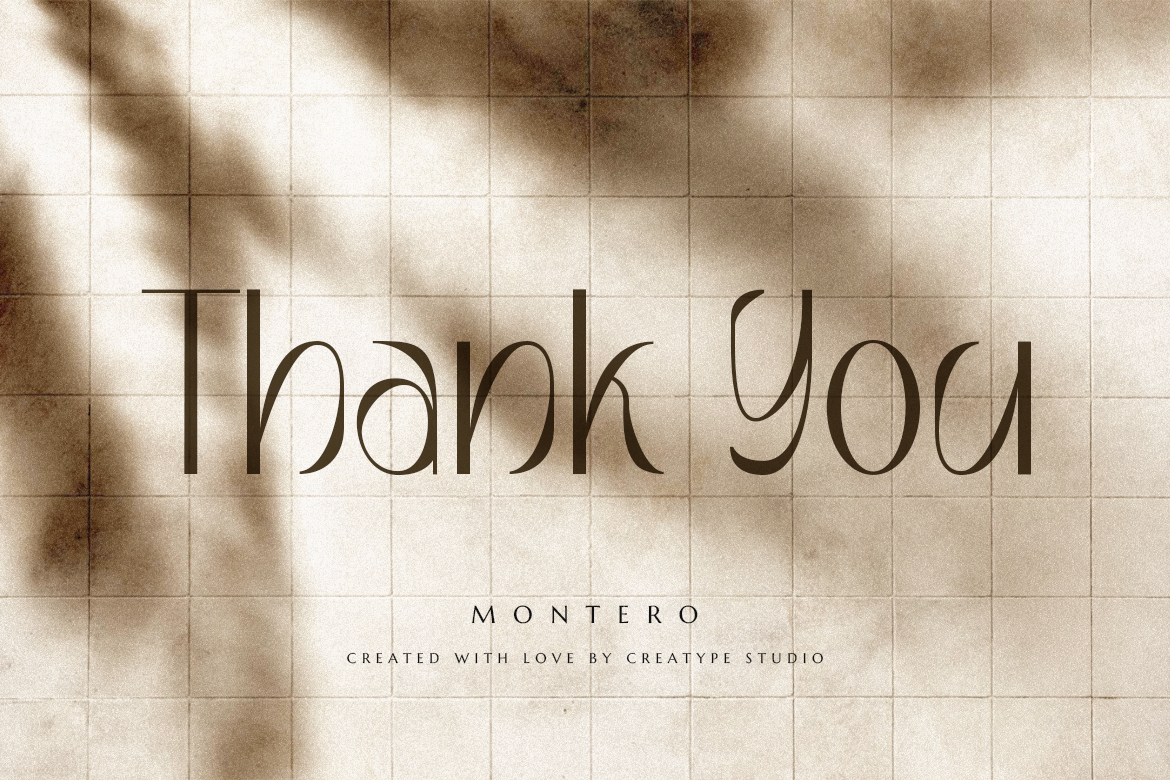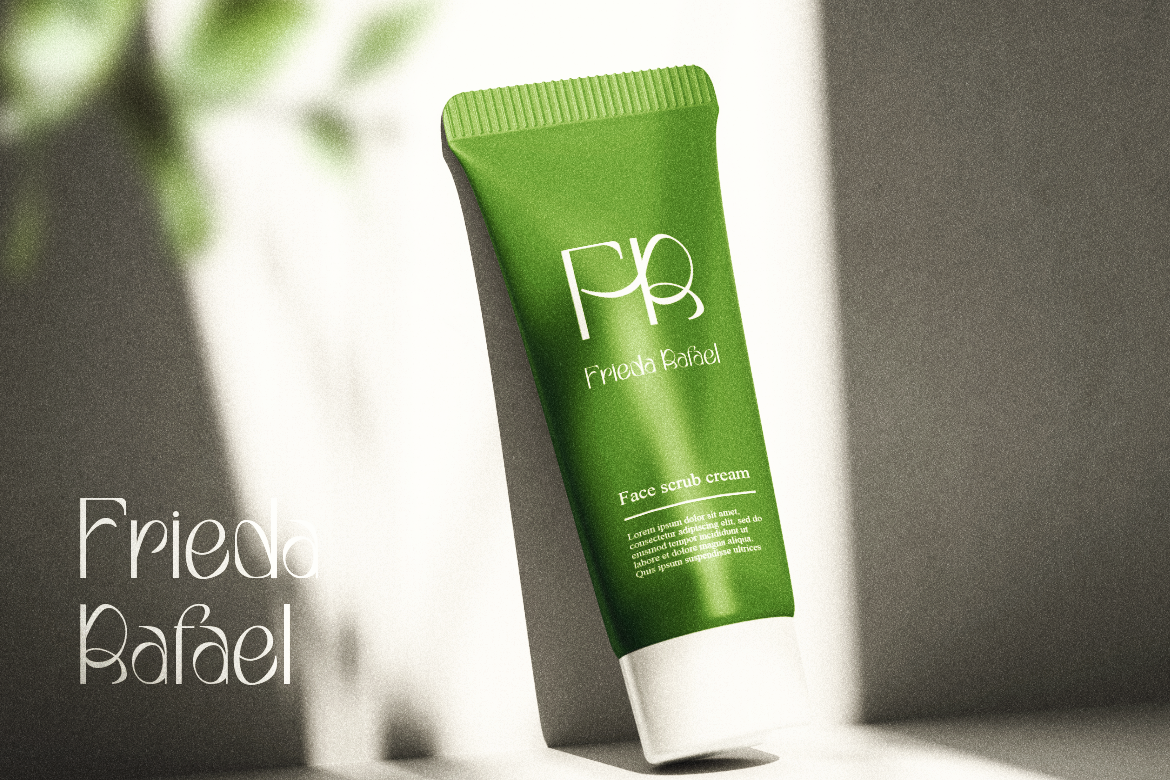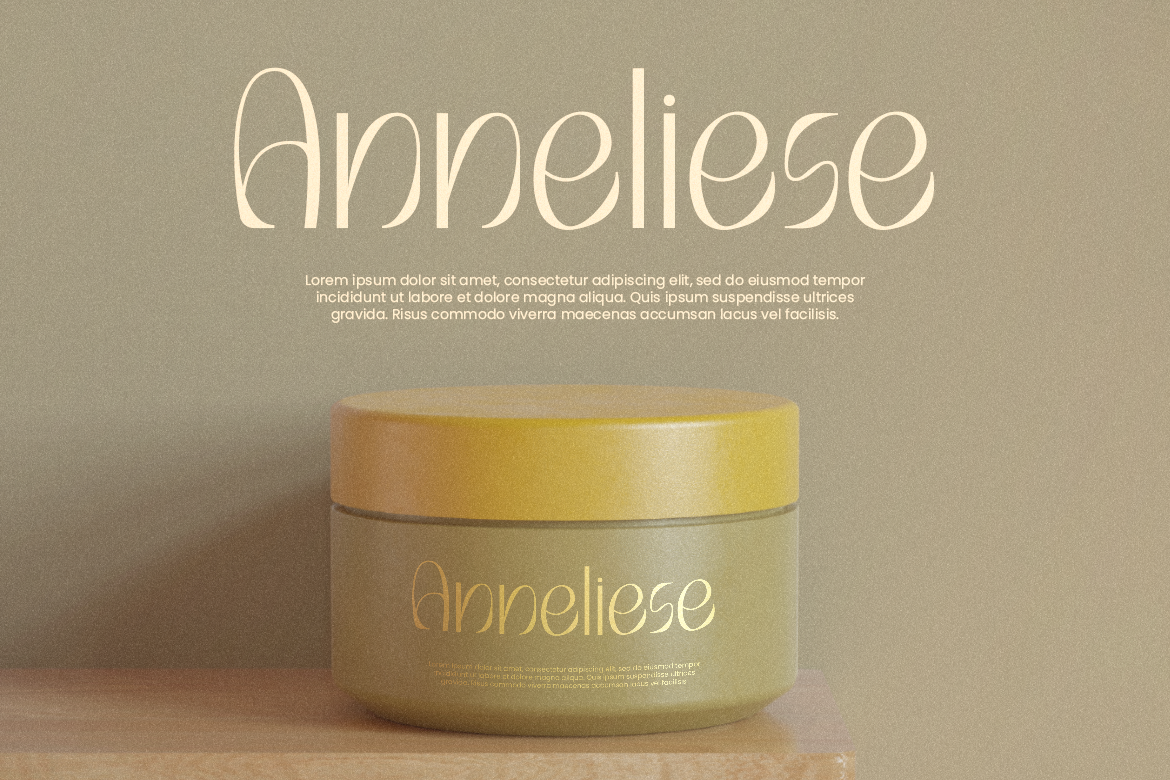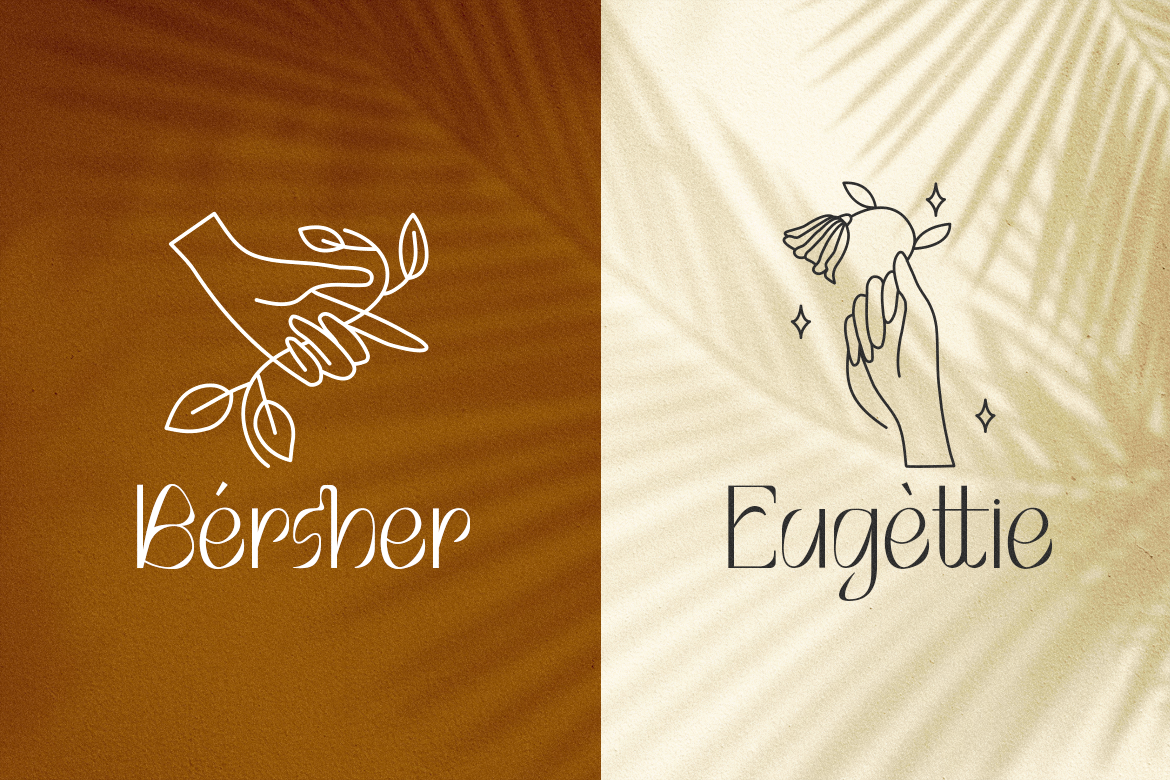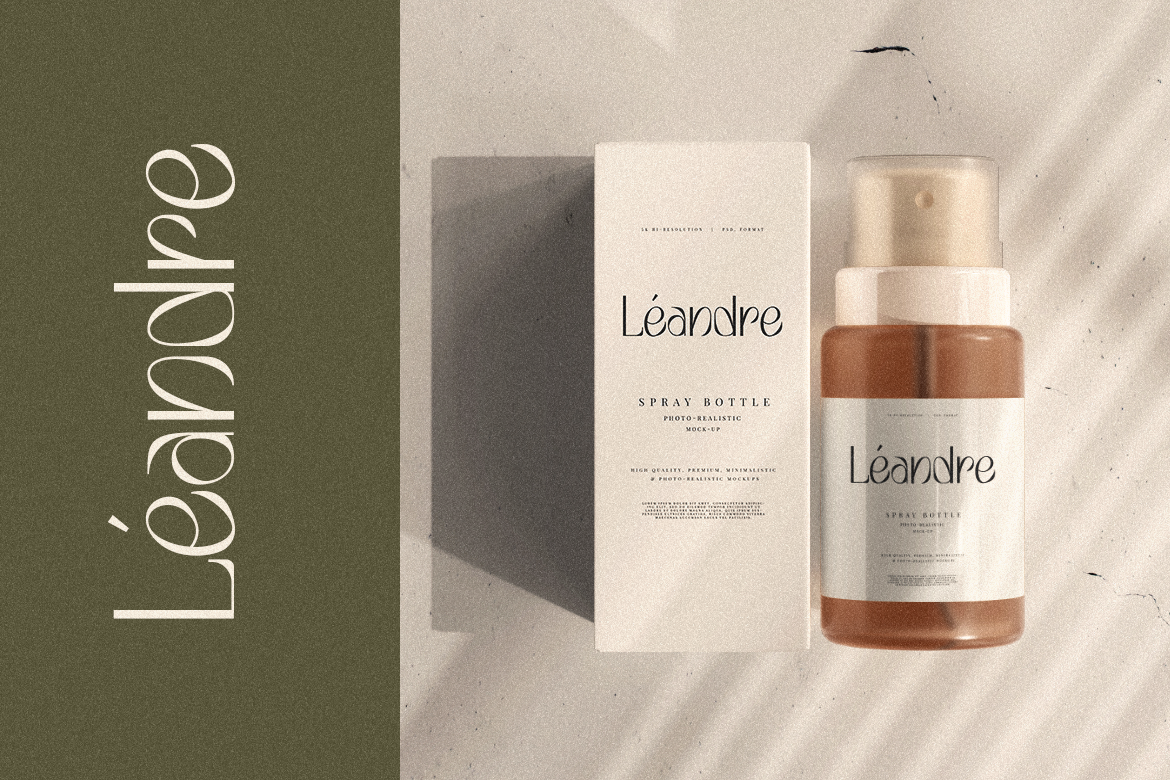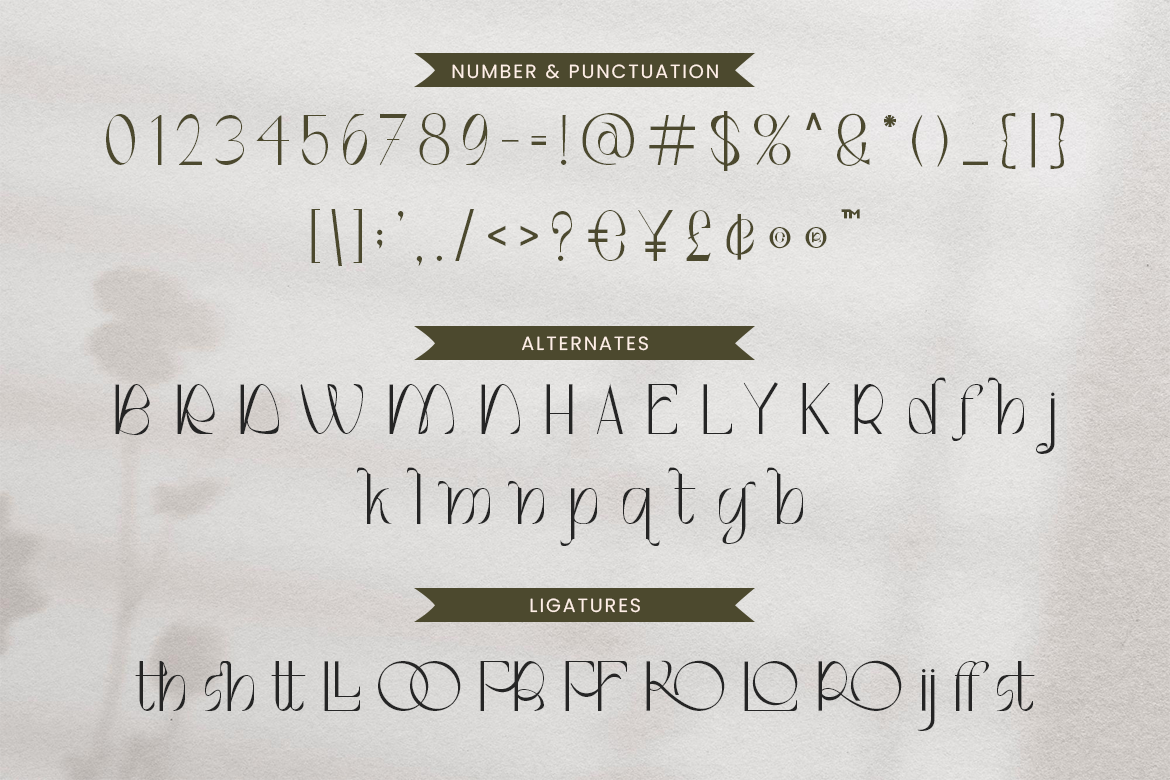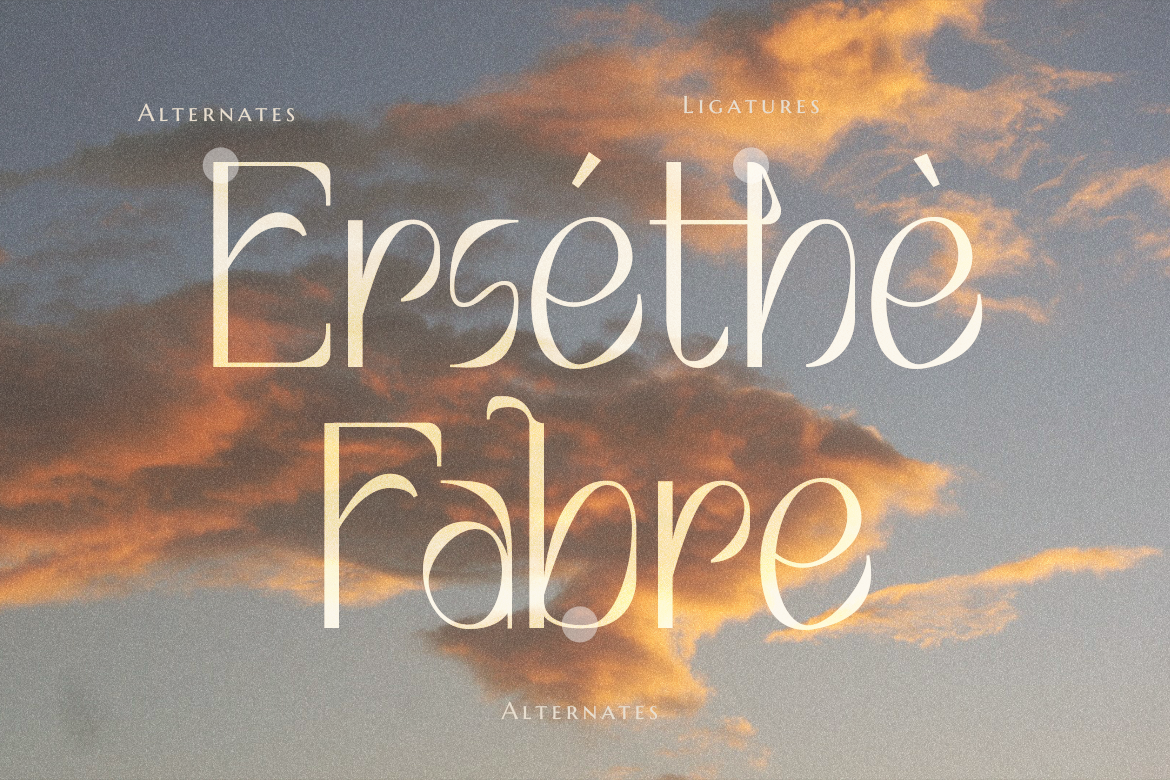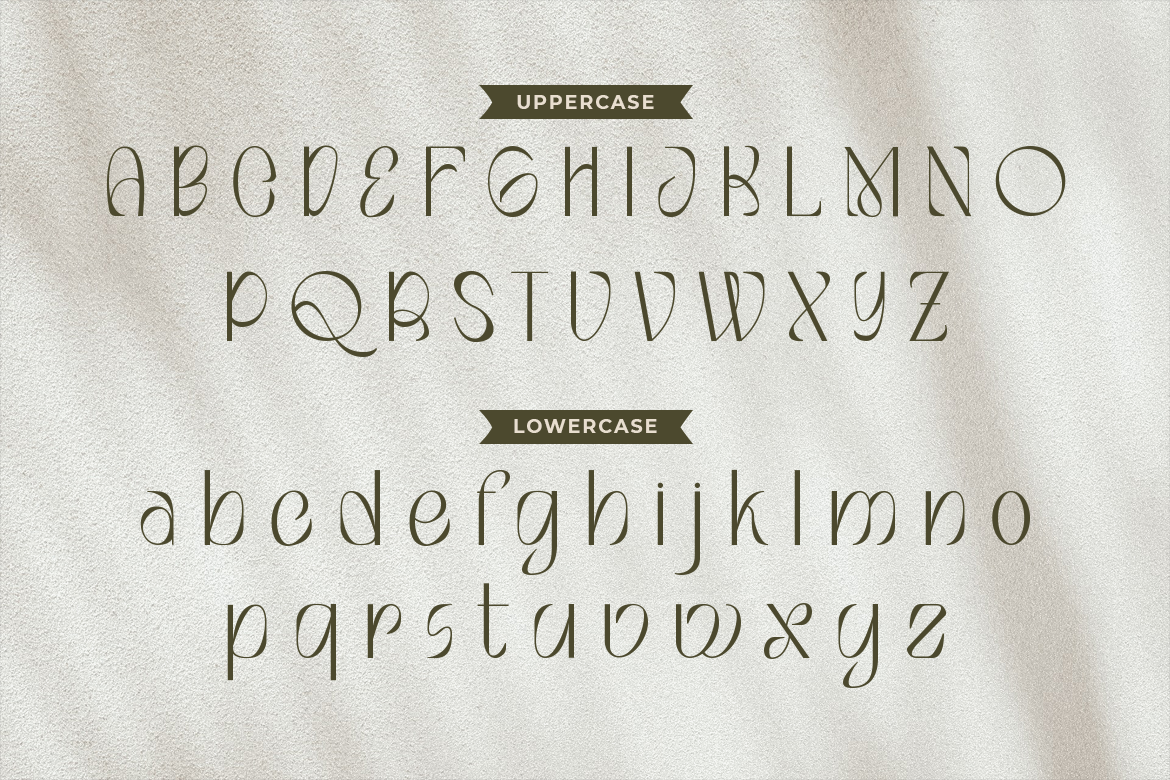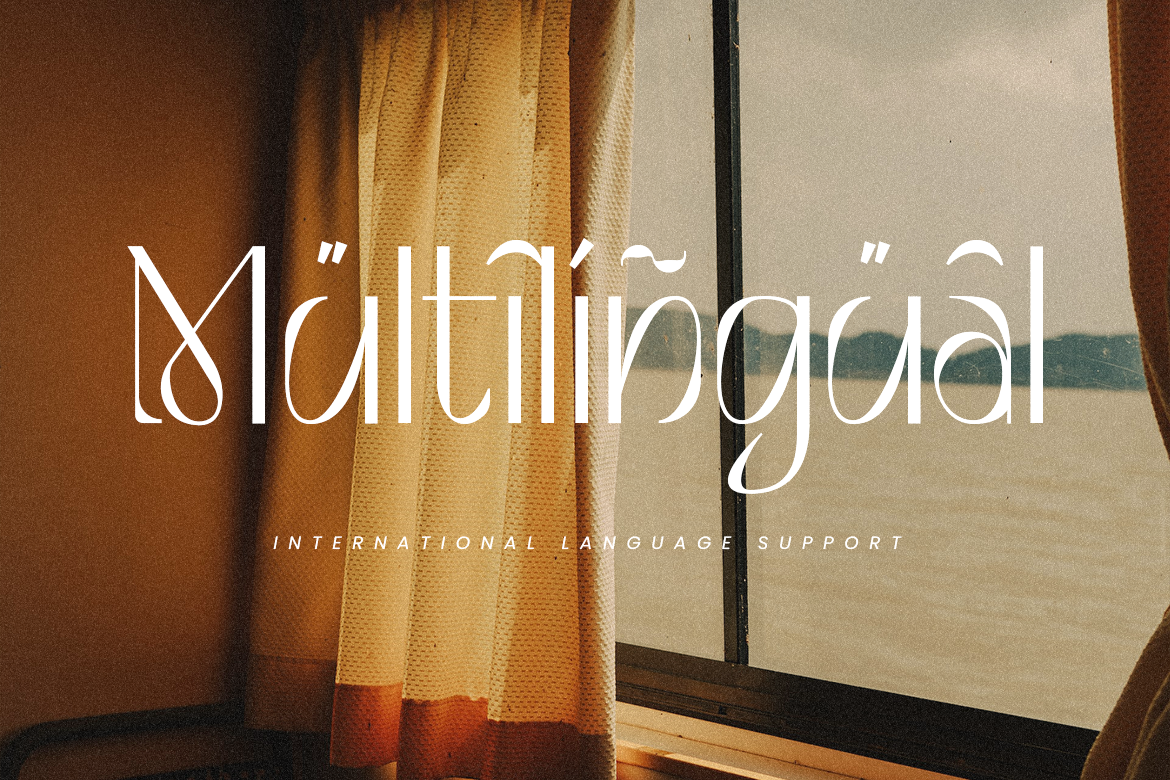
Montero, a typeface that combines curvy contours with spirited character, also give classy retro looks.
Montero is perfect for branding projects, logos, wedding designs, social media posts, advertisements, product packaging, product designs, label, photography, watermark, invitation, stationery, and any projects that need handwriting taste.
Montero Beautiful Sans Font